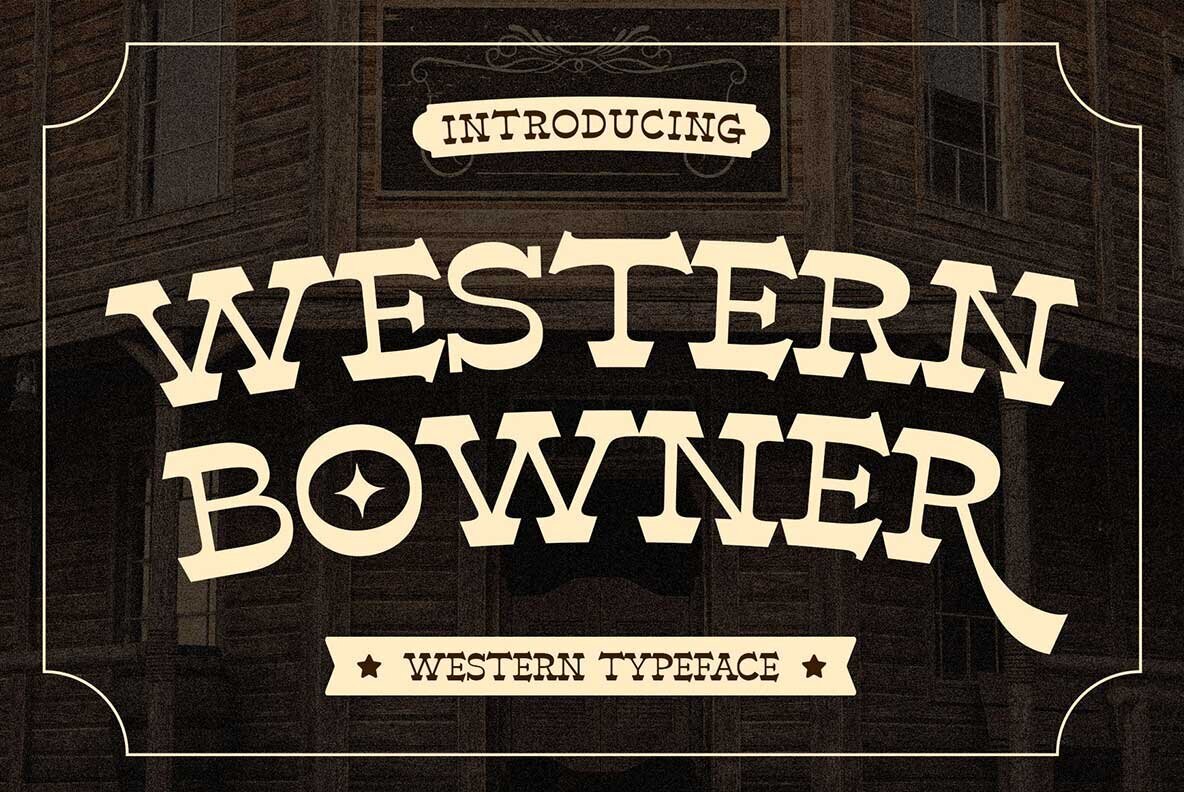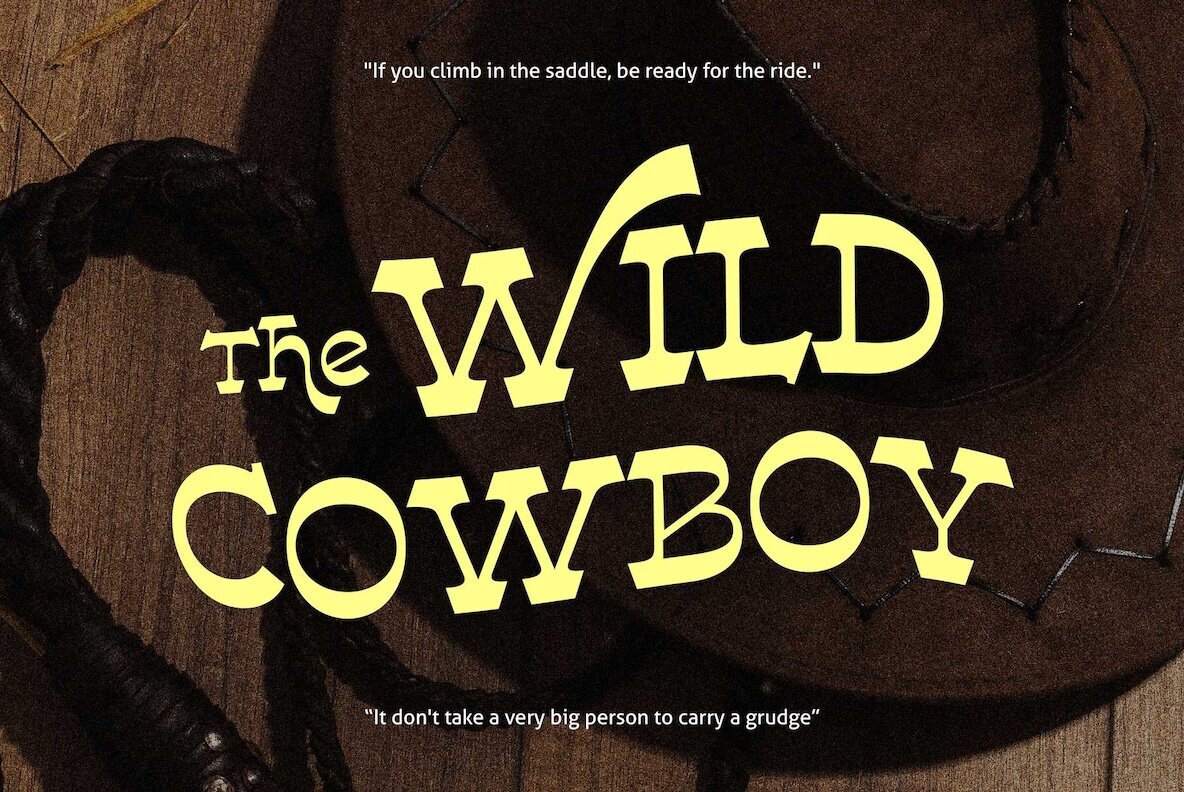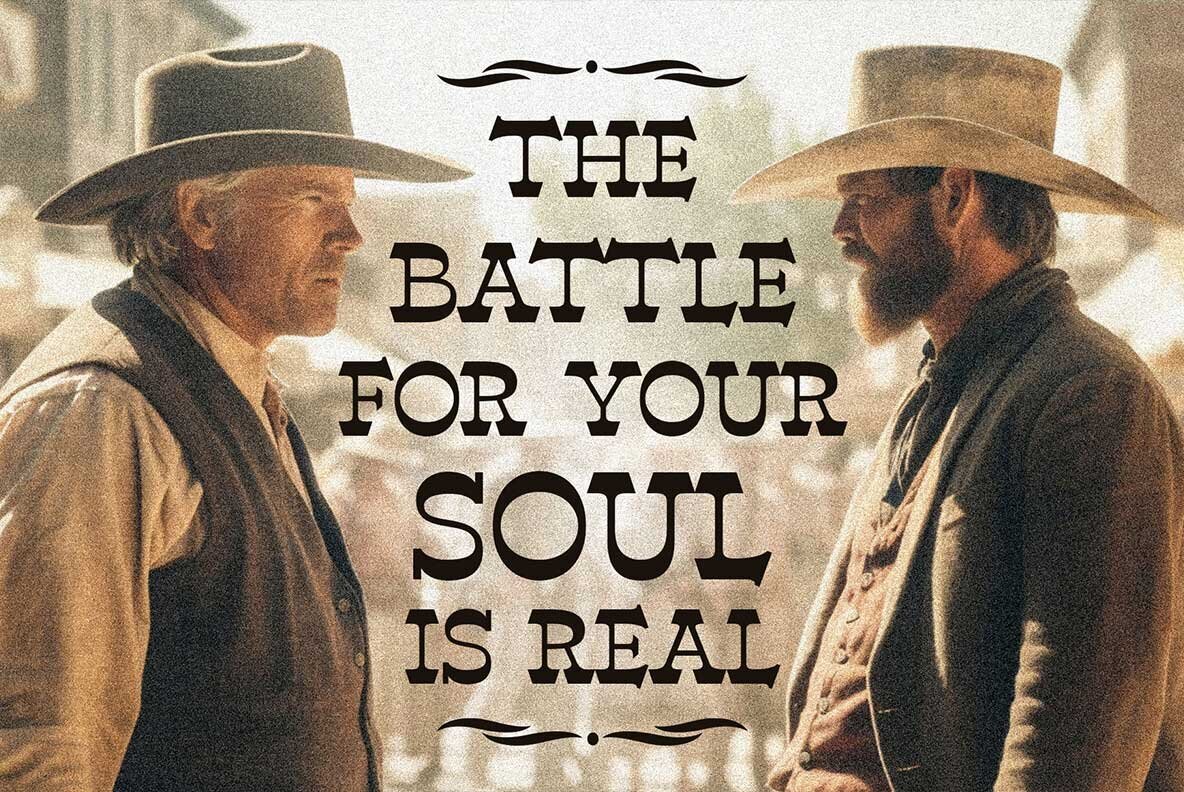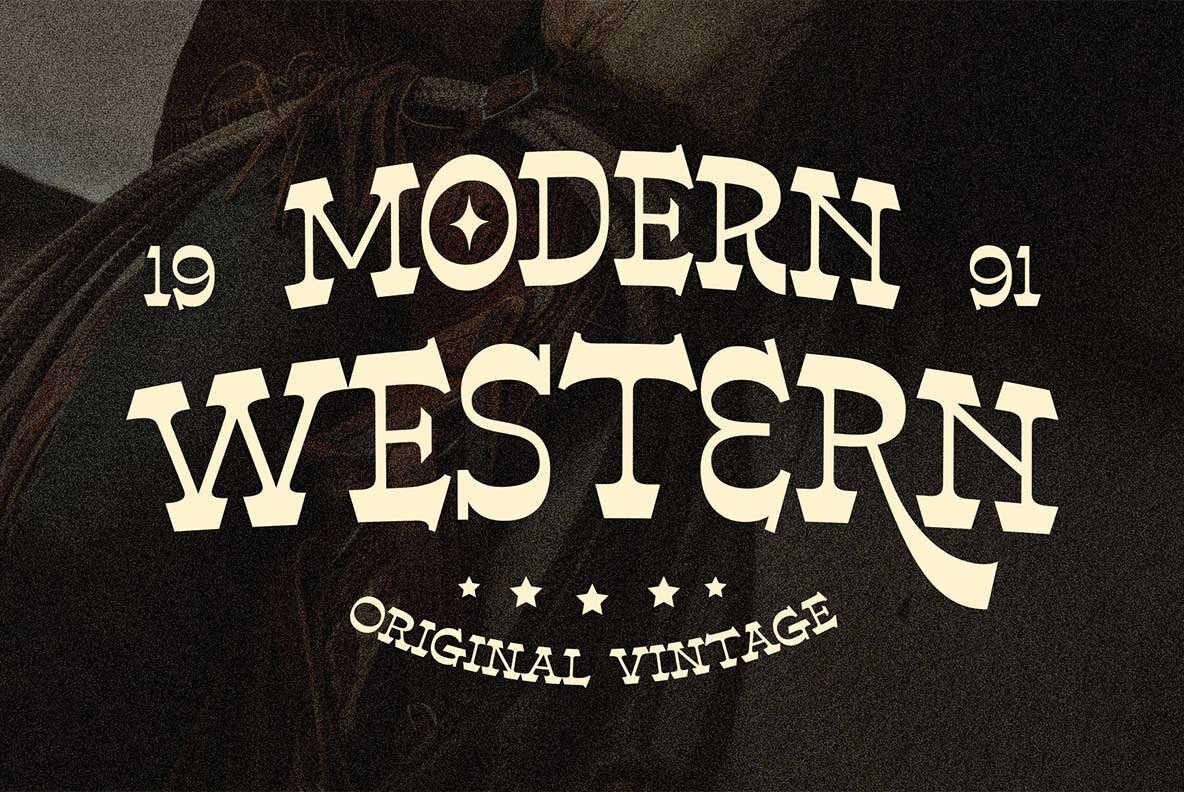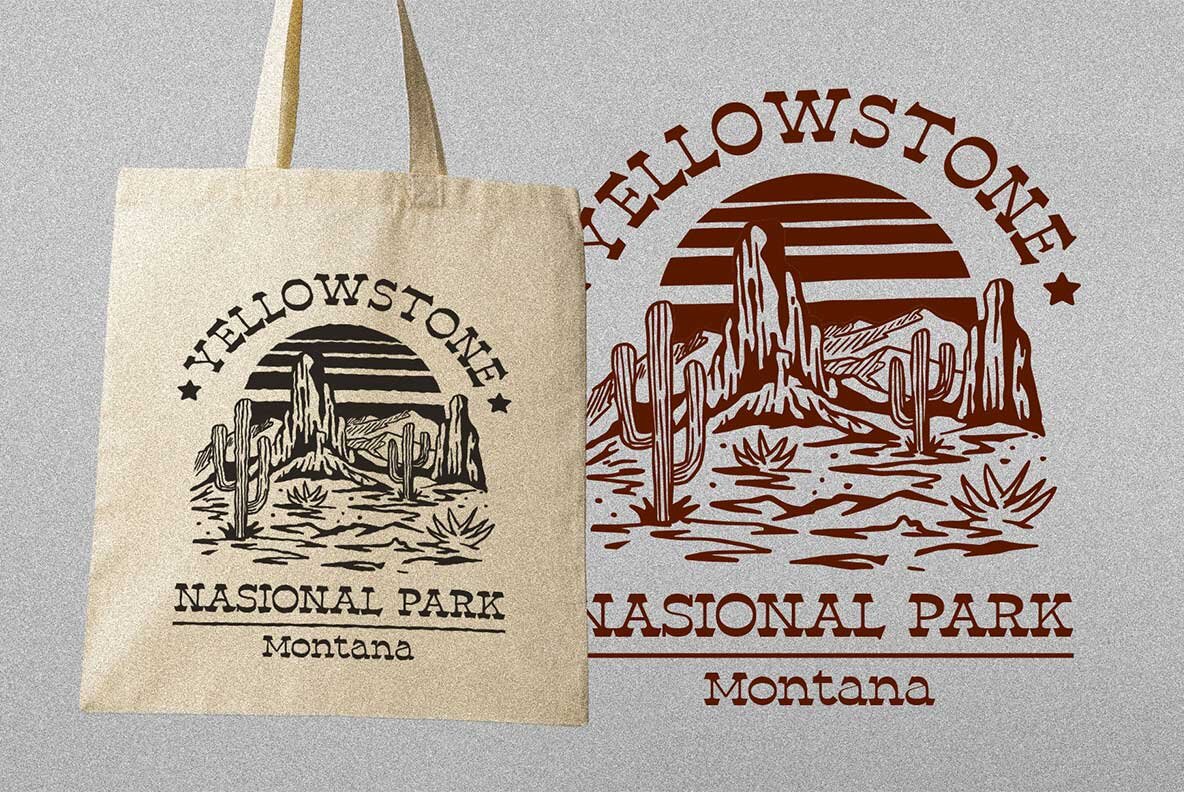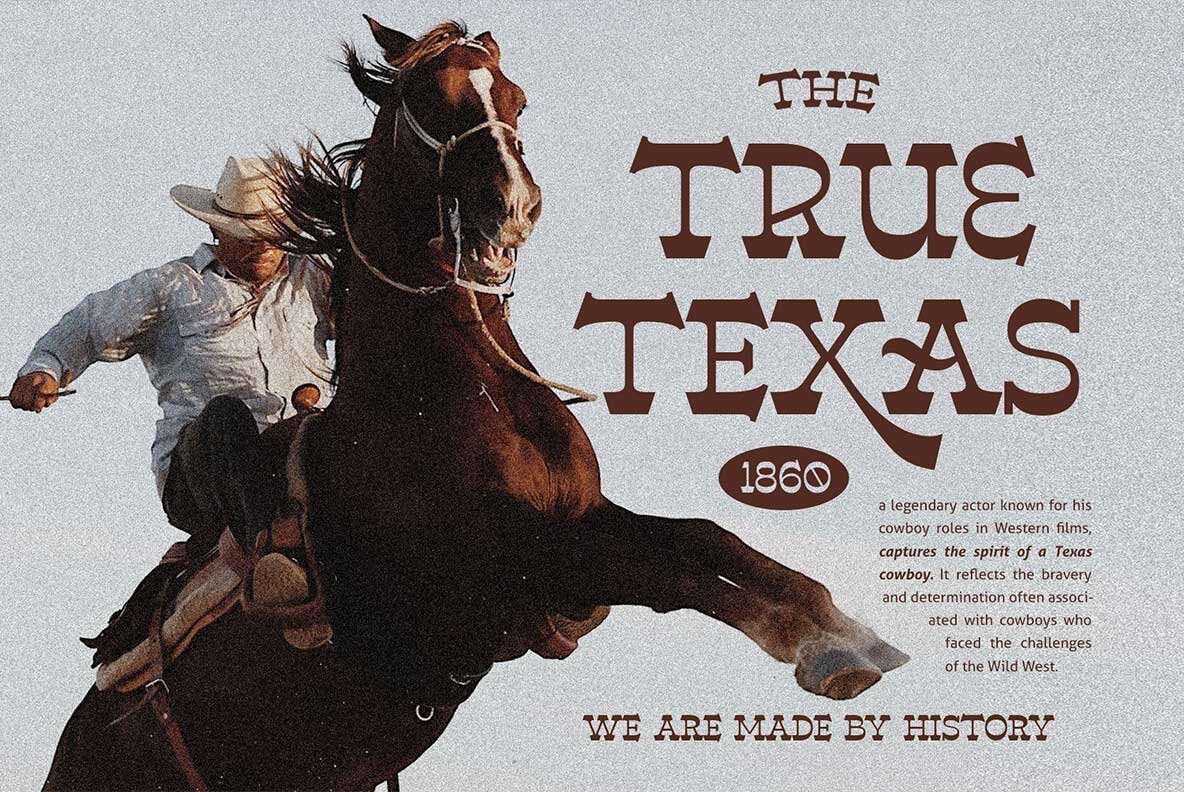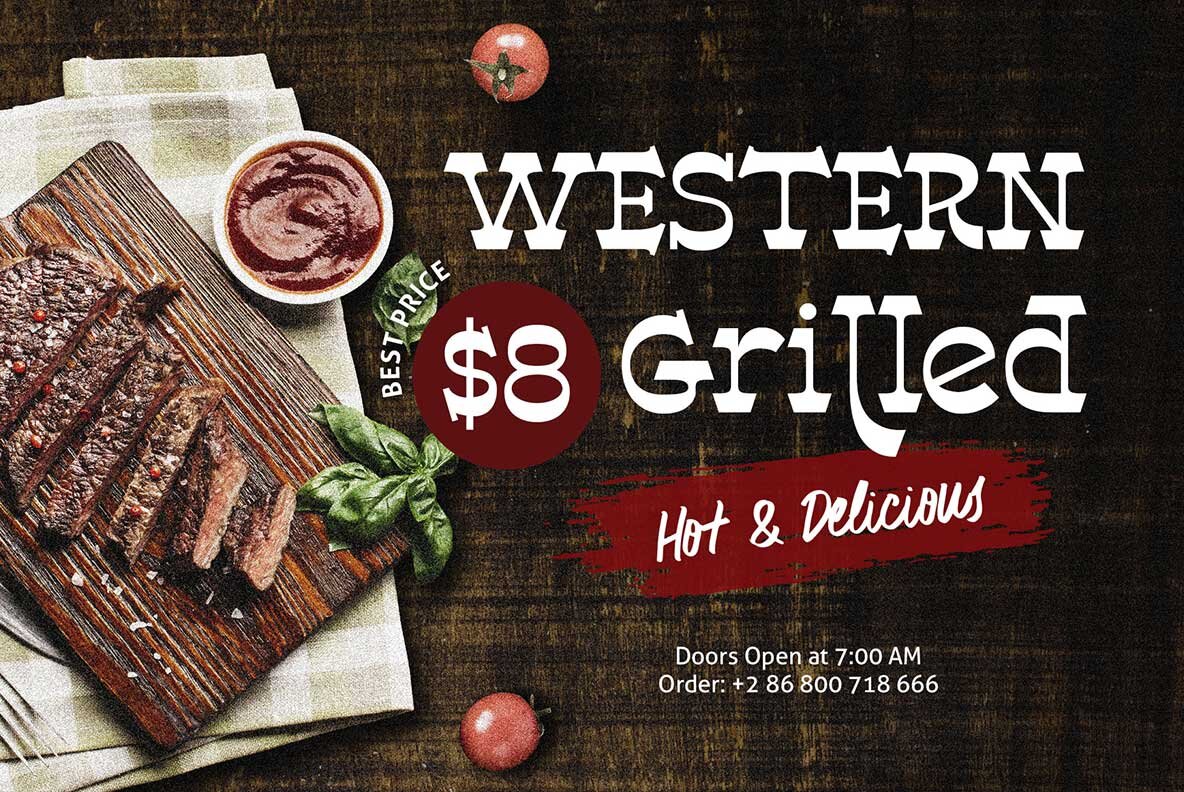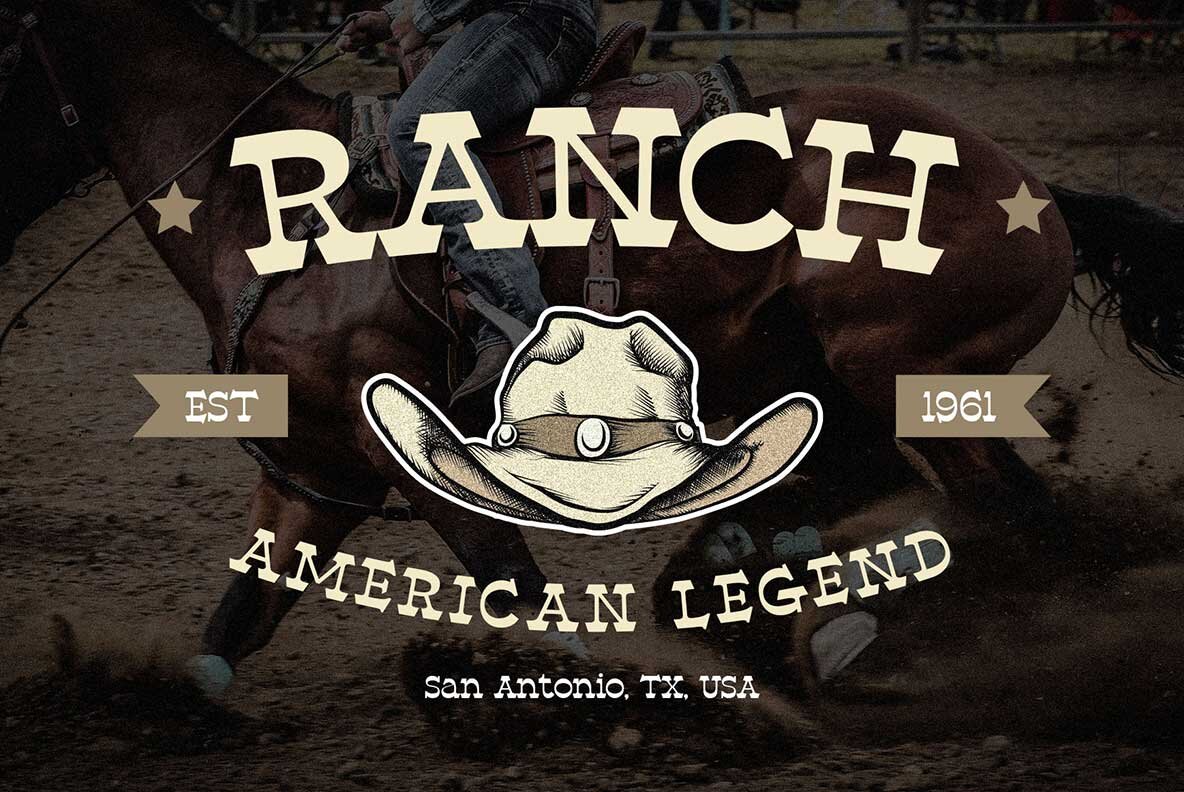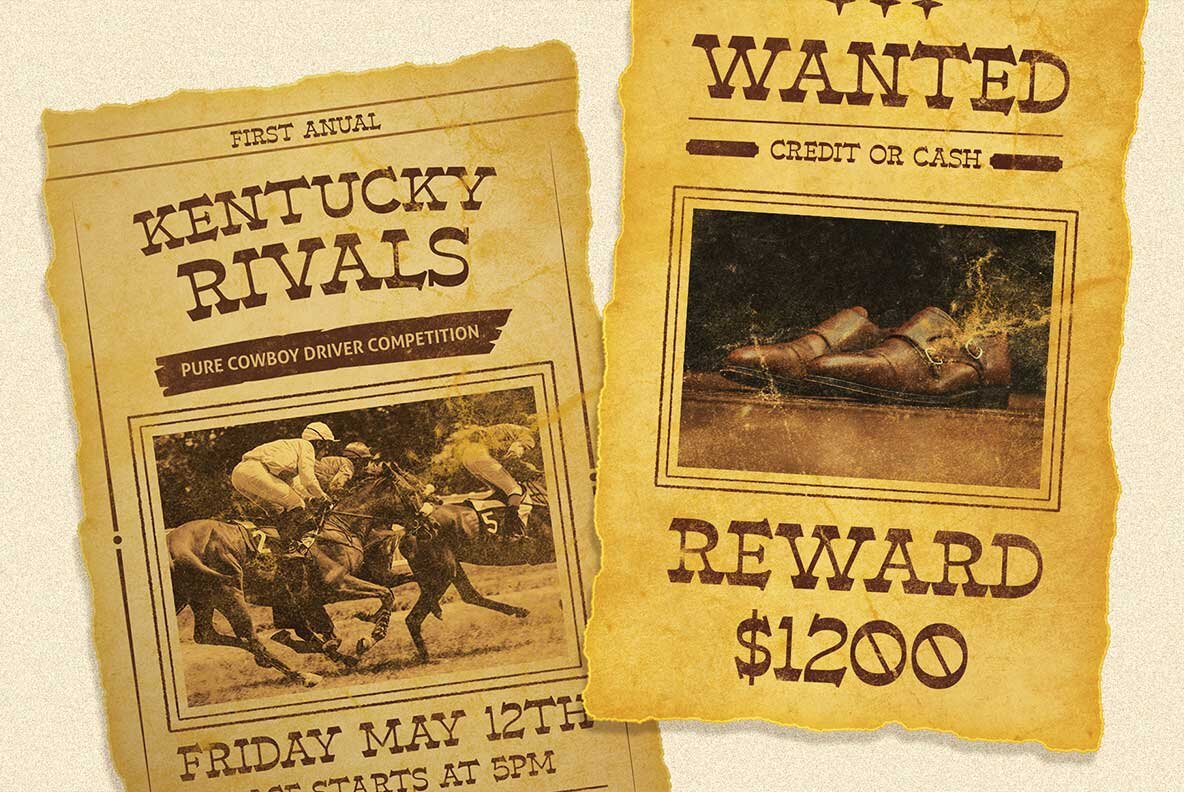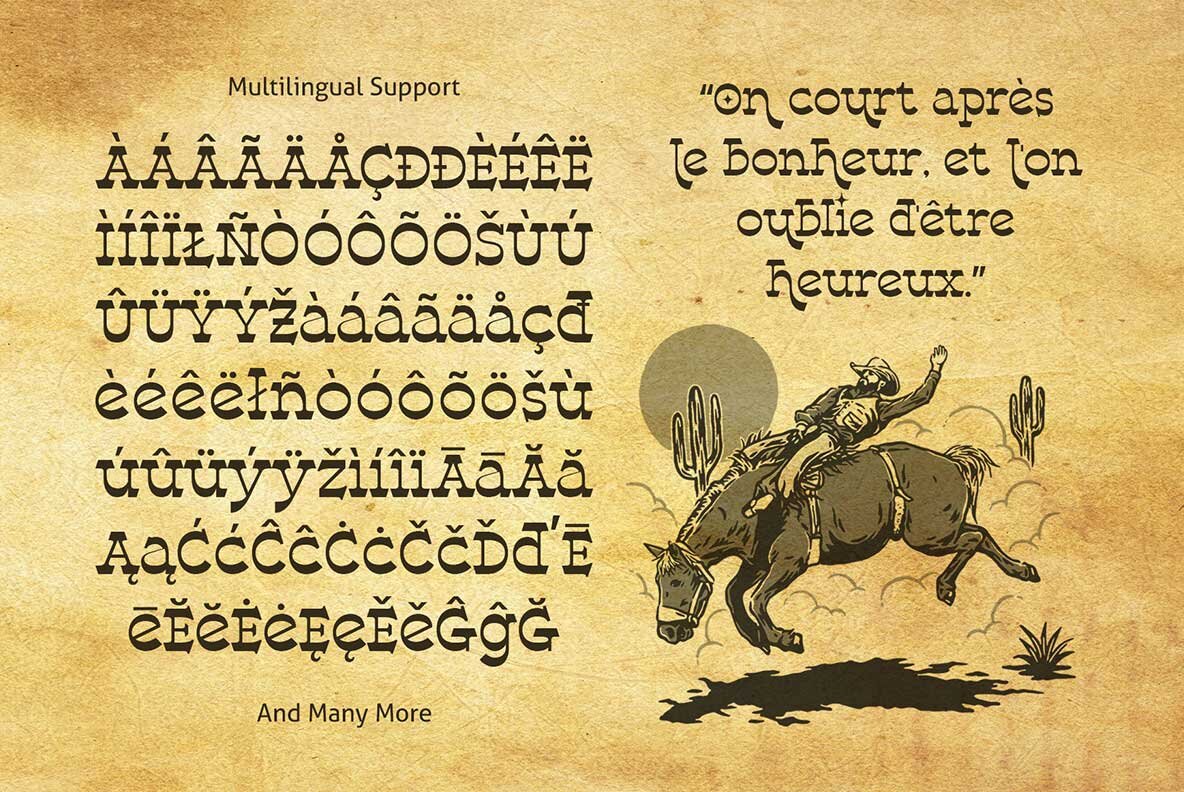
Western Bowner Font
Western Bowner Regular
Western Bowner brings a unique fusion of vintage charm and rugged flair to any project. Its bold, expressive characters draw from Western aesthetics, creating standout visuals for posters, logos, apparel, and more. The robust letterforms evoke a classic Americana feel, making it easy to channel the spirit of the Old West or introduce touches of rustic elegance to modern designs. With its character-rich style, Western Bowner serves as a reliable creative tool for designers seeking both versatility and authenticity. Let your designs capture attention and leave a lasting impression with this bold Western font.Western Bowner: Vintage Western Character for Distinctive Designs